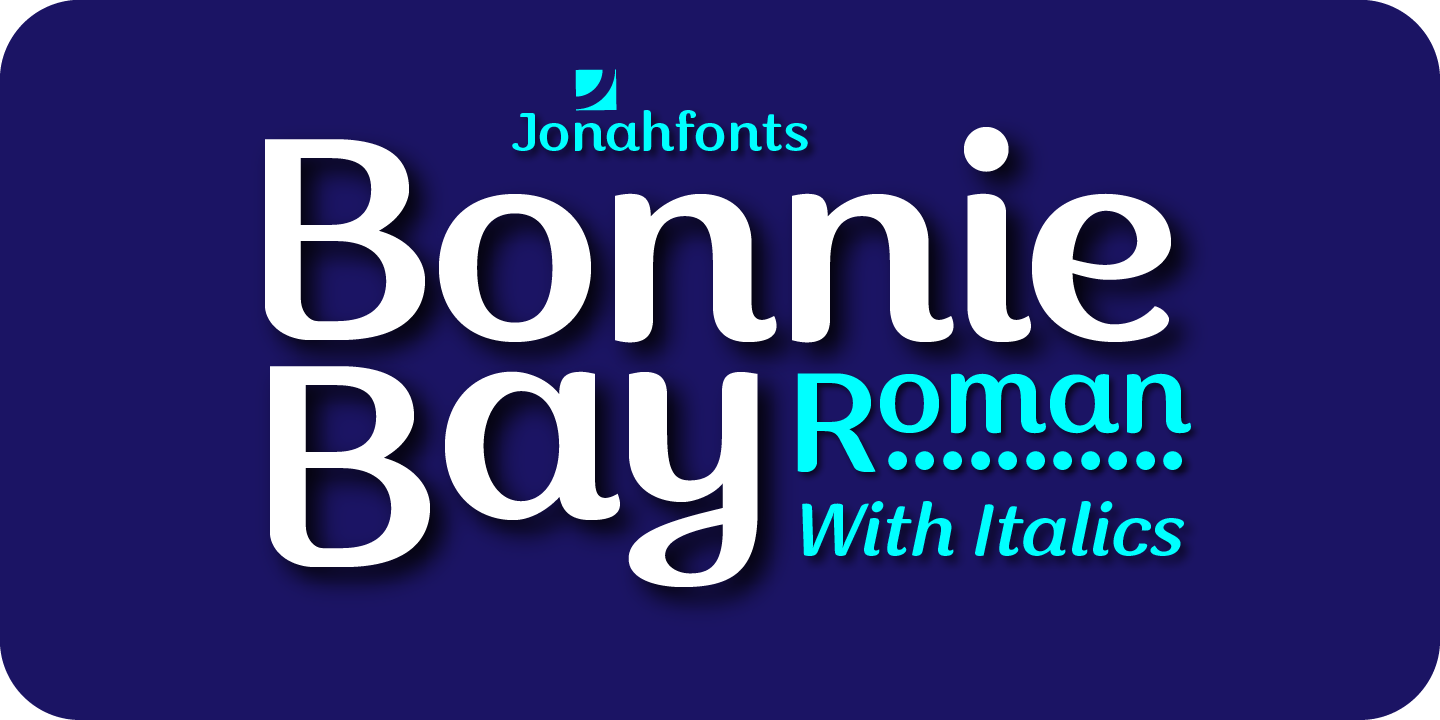
The Bonnie Bay Roman Font excels in various design applications including coastal resort branding, seaside restaurant marketing, marine tourism communications, oceanfront property materials, nautical heritage identities, coastal wedding promotions, waterfront business signage, maritime museum documentation, seaside boutique packaging, and distinguished coastal projects that demand maritime authenticity and Roman sophistication.
What makes the Bonnie Bay Roman Font exciting is its elegant embodiment of coastal charm and classical Roman typography through letterforms that capture the essence of seaside tranquility and the timeless dignity of Roman lettering traditions. This typeface demonstrates exceptional coastal character through carefully crafted letters that suggest the gentle rhythm of ocean waves, the classical proportions of Roman inscriptions, and the serene beauty that makes coastal environments so emotionally restorative and visually inspiring. The font's bay personality makes it perfect for coastal businesses and maritime organizations seeking to communicate seaside authenticity, Roman elegance, and the kind of coastal sophistication that creates memorable maritime experiences through typography that literally flows with Roman grace.
The Bonnie Bay Roman Font family typically includes classical weight variations that enhance the coastal aesthetic, featuring Roman proportions and extended character sets optimized for maritime communications and coastal applications. These family options often include ocean-inspired alternates, nautical symbols, and classical decorative elements that provide designers with comprehensive tools for creating authentically coastal typography that celebrates Roman heritage while maintaining contemporary design appeal and maritime credibility.
Coastal professionals and maritime organizations consistently select Bonnie Bay Roman Font Free Download for projects requiring typography that communicates coastal authenticity and Roman sophistication. This typeface delivers exceptional performance in coastal marketing, maritime branding, and seaside communications where establishing elegance and creating tranquil coastal atmosphere is essential for maritime engagement. The font's Roman character makes it particularly effective for resort and heritage applications. Download Bonnie Bay Roman Font Free Download today to access this classically coastal typeface that transforms maritime communications with its Roman elegance and seaside sophistication, creating compelling coastal experiences that honor the magnificent tranquility of bay environments while celebrating the classical dignity that defines authentic Roman typography and maritime excellence.